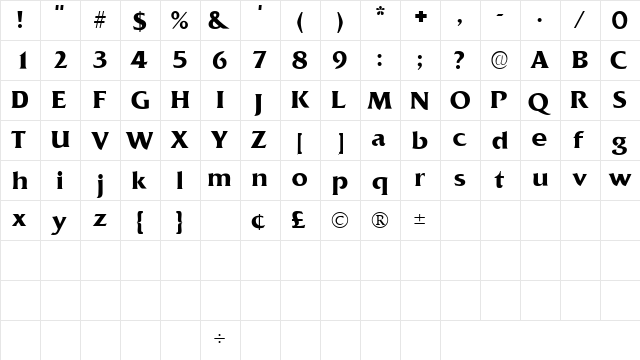
AnticlaireSSK Regular
Design Context for AnticlaireSSK Typeface
AnticlaireSSK offers clean, dependable letterforms without strong stylistic allegiance, making it a practical choice for designers who need flexibility.